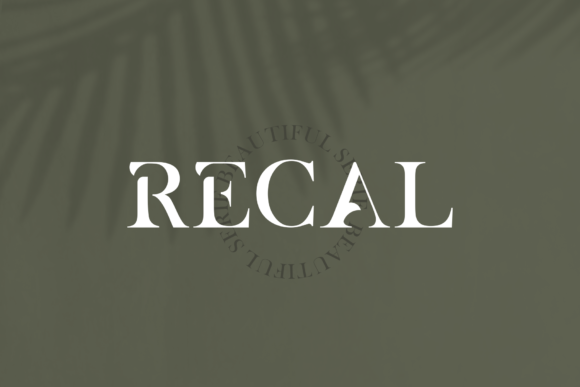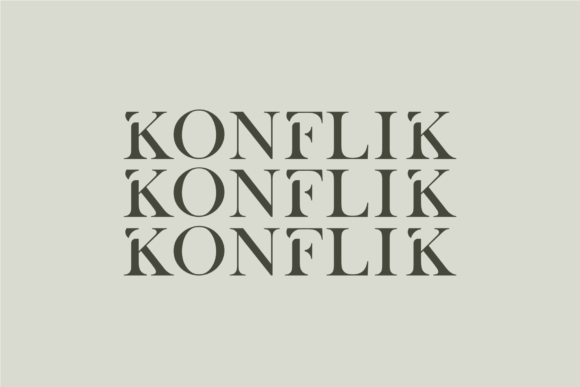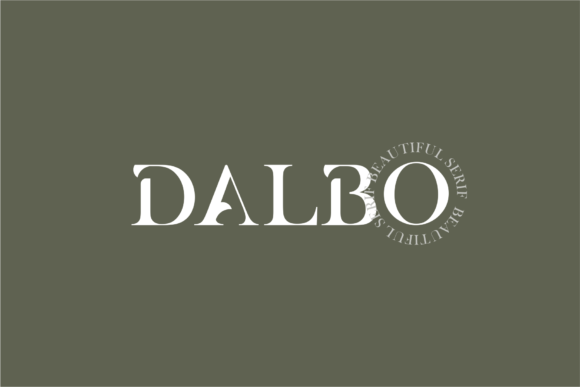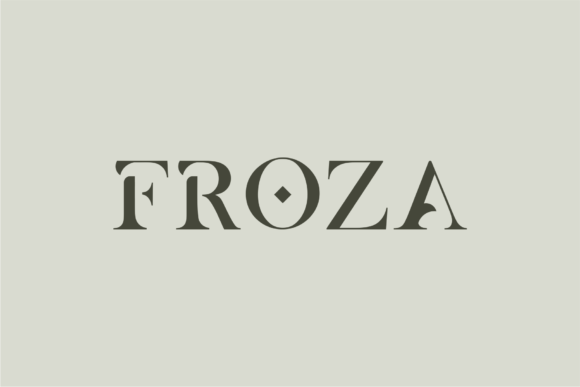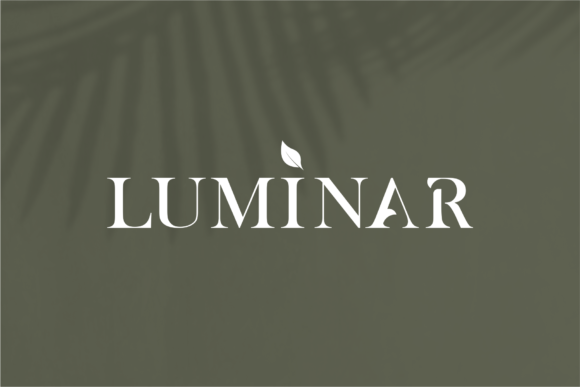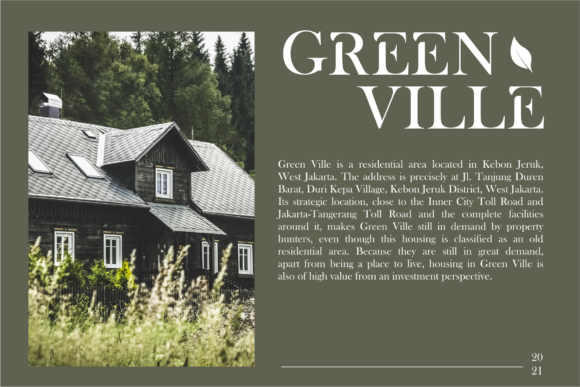
Introducing Albra Font: The Ultimate Serif Font for Creative Projects
Are you tired of using the same old fonts for your creative projects? Look no further than Albra Font, a bold and thick lettered serif font that’s sure to capture attention and inspire your audience. With its incredibly versatile style, Albra Font is perfect for a wide range of applications, from wedding invitations and stationery art to social media posts and more.
The Characteristics of Albra Font
Albra Font is a serif font, which means it features small lines or flourishes at the ends of the letters. This classic design element gives Albra Font a timeless and sophisticated look that’s perfect for projects where you want to convey elegance and refinement. The font is also bold and thick lettered, which makes it highly legible and perfect for headlines, titles, and other applications where you want to make a statement.
The Benefits of Using Albra Font
So why choose Albra Font for your next project? Here are just a few benefits of using this amazing font:
• Versatility: Albra Font is incredibly versatile, making it suitable for a wide range of applications and projects. Whether you’re designing a wedding invitation, a social media post, or a piece of stationery art, Albra Font is sure to impress.
• Elegance: The serif design and bold lettering of Albra Font give it a sophisticated and elegant look that’s perfect for projects where you want to convey refinement and luxury.
• Legibility: The thick lettering of Albra Font makes it highly legible, even at small sizes. This means you can use it for body text as well as headlines and titles.
• Creativity: With Albra Font, you can unleash your creativity and create stunning designs that capture attention and inspire your audience.
Using Albra Font in Your Designs
So how can you use Albra Font in your designs? Here are a few ideas to get you started:
• Wedding Invitations: Albra Font is perfect for wedding invitations, where you want to convey elegance and sophistication. Use it for the invitation text, or pair it with a script font for a romantic and whimsical look.
• Stationery Art: Create beautiful stationery art with Albra Font, including greeting cards, thank you cards, and more.
• Social Media Posts: Use Albra Font to create eye-catching social media posts that capture attention and inspire your audience.
• Signage: Albra Font is also perfect for signage, including menus, posters, and more.
Tips for Getting the Most Out of Albra Font
Here are a few tips for getting the most out of Albra Font:
• Experiment with different colors: Albra Font looks great in a wide range of colors, so don’t be afraid to experiment and find the perfect color scheme for your project.
• Pair it with other fonts: Albra Font pairs well with a wide range of other fonts, including script fonts, sans serif fonts, and more.
• Use it consistently: To create a cohesive look, use Albra Font consistently throughout your project.
In conclusion, Albra Font is a bold and thick lettered serif font that’s perfect for creative projects. With its incredibly versatile style, elegance, legibility, and creativity, Albra Font is sure to inspire your audience and capture attention. Whether you’re designing a wedding invitation, a piece of stationery art, or a social media post, Albra Font is the perfect choice. So why wait? Download Albra Font today and start creating stunning designs that leave a lasting impression.